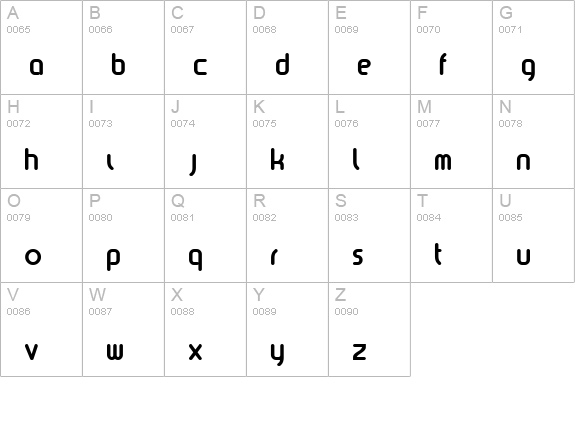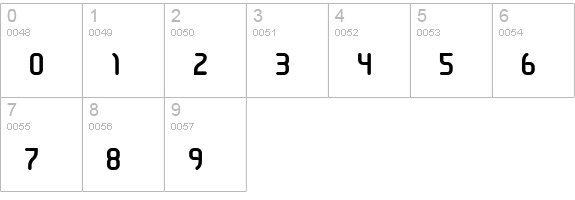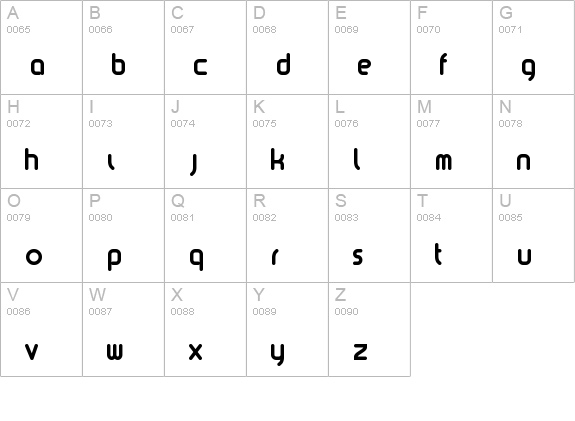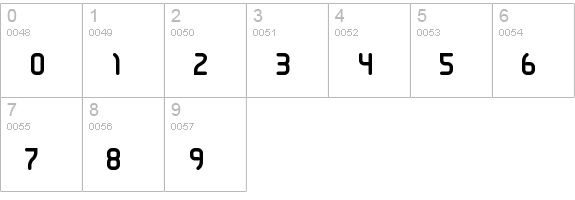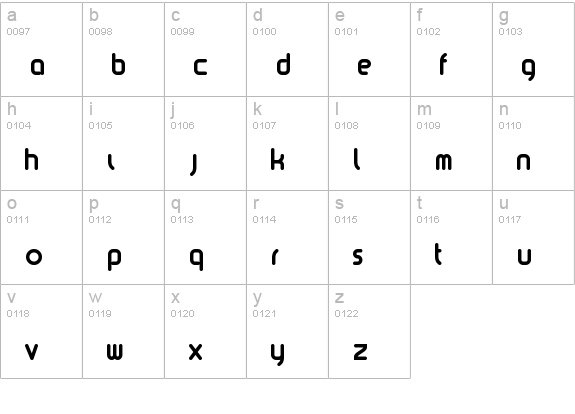
kazoo Font Details
Introducing Kazoo Font, a captivating and versatile typeface that is sure to catch the eye and add a touch of playfulness to any design project. With its sleek and modern design, Kazoo Font offers a perfect balance between elegance and fun, making it ideal for a wide range of creative applications. What sets Kazoo Font apart is not only its stunning visual appeal, but also the fact that it is available for free. Yes, you read that right – this incredible font can be freely downloaded at FontsMarket.com, allowing designers and enthusiasts alike to effortlessly access its unique charm and bring their creative visions to life without any cost. Whether you're working on a logo, branding materials, invitations, posters, or any other design project, Kazoo Font is sure to leave a lasting impression. Its carefully crafted letterforms effortlessly combine smooth curves with bold strokes, resulting in a harmonious and eye-catching aesthetic. With a wide range of glyphs and alternate characters, Kazoo Font offers endless possibilities for customization and creativity. From ligatures and swashes to stylistic sets, this font provides you with all the tools you need to make your designs truly stand out. The versatility of Kazoo Font is further enhanced by its ability to seamlessly adapt to various design styles and themes. Whether you're going for a sophisticated and elegant look or a playful and whimsical vibe, this font effortlessly adapts to your vision, making it a must-have in any designer's toolkit. Don't miss out on the opportunity to add Kazoo Font to your font collection. Download it for free today at FontsMarket.com and unlock a world of creativity and endless design possibilities. Get ready to captivate your audience and make a lasting impression with the vibrant and dynamic energy of Kazoo Font.